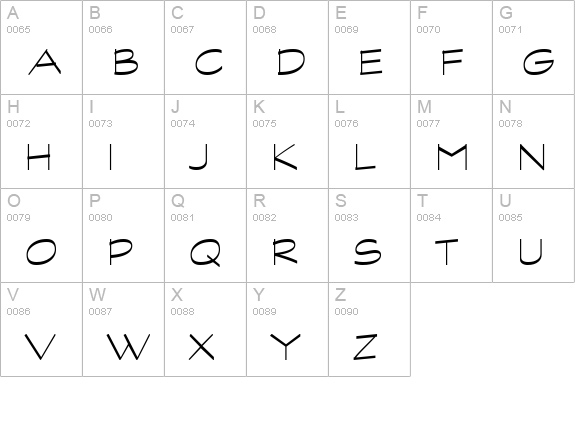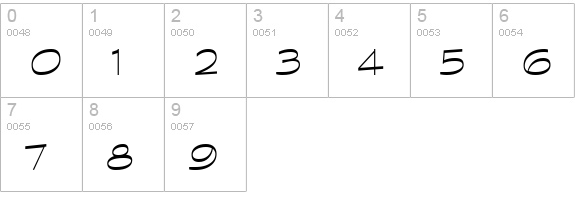
Graphite Light ATT Font Details
Graphite Light ATT is a refined, elegant variant in the Graphite typeface family \xE2\x80\x94 well suited to elegant body text, refined sub-headings, and luxury branding.
Graphite Light ATT font is a sleek and modern typeface that exudes professionalism and sophistication. Its clean lines and elegant curves make it perfect for a wide range of design projects, from branding to editorial layouts. This versatile font is ideal for creating clean and contemporary designs that demand attention. The Graphite Light ATT font is not only visually appealing but also highly legible, making it suitable for both print and digital media. Whether used for headlines, body text, or graphic elements, this font will add a touch of refinement to any project. Best of all, Graphite Light ATT font is available for free download at FontsMarket.com. This means that you can easily access this high-quality typeface without having to break the bank. Don't miss out on the opportunity to enhance your designs with this stylish and professional font. Download Graphite Light ATT today and elevate your design projects to the next level.